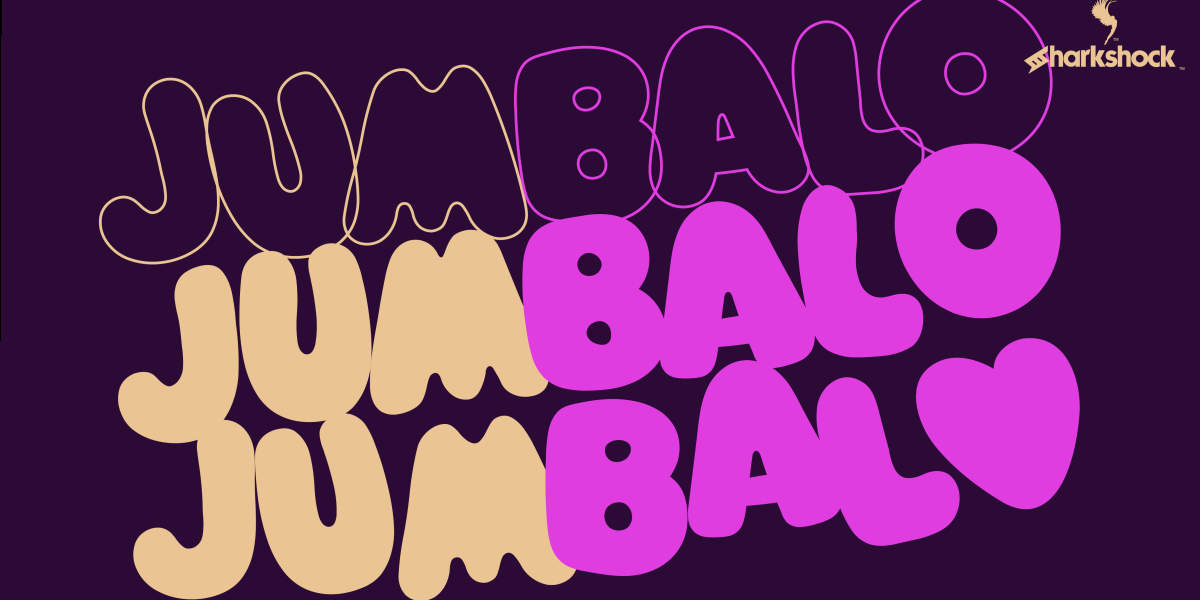
The Jumbalo font is an extremely heavy and playful display typeface, characterized by its thick, bulbous, and completely rounded characters. It evokes a strong sense of retro aesthetics, reminiscent of designs from the 1970s or 1980s. The font is highly versatile, as the promotional image shows it comes in multiple styles, including a solid fill, an outline version, and a variant that incorporates heart-shaped dingbats. Due to its all-uppercase presentation, it is categorized as an initial-caps style.
Jumbalo